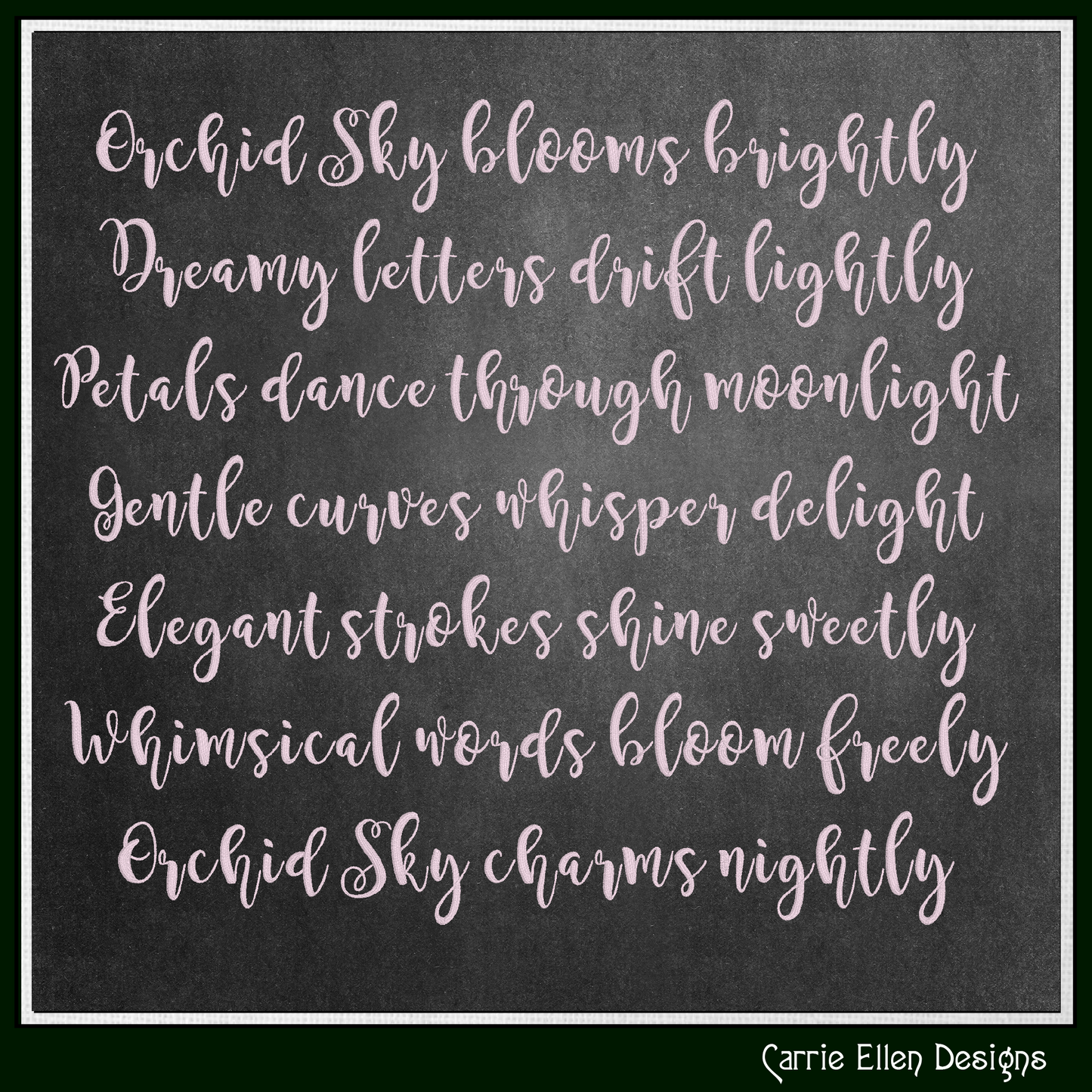
Orchid Sky Script BX Font | Machine Embroidery Alphabet | Native Embrilliance Lettering Font (4300)
Add graceful, flowing lettering to your embroidery projects with the Orchid Sky Script BX Font from Carrie Ellen Designs. This elegant script-style machine embroidery alphabet features beautifully shaped letters designed to give names, monograms, sayings, gifts, and personalized projects a polished decorative finish.
Orchid Sky combines an elegant handwritten appearance with the convenience of embroidery-ready lettering, making it a versatile choice for everything from personalized gifts and apparel to home décor and keepsakes.
Font Features
- Playful decorative alphabet
🧵 Design Includes:
- Uppercase & lower case letters and numbers
- Basic punctuation
- Consistent styling across all characters